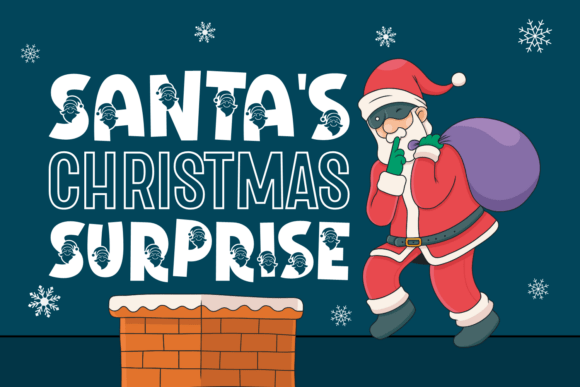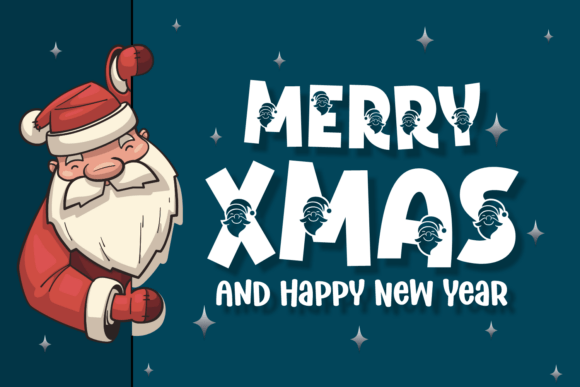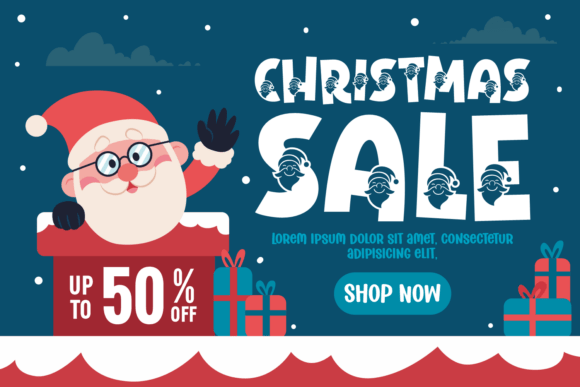
Deck the Halls with the Besty Santa Font
Have you ever found yourself struggling to capture the magic of the holiday season in your designs? You’re not alone. For many designers, creating festive and fun projects can be a daunting task, especially when it comes to conveying the joy and cheer of the holidays. That’s where the Besty Santa Font comes in – a cheerful and chunky decorative font designed to grab attention and spread festive cheer.
With its bold, bouncing letterforms and unique Santa Claus-themed embellishments, the Besty Santa Font is your go-to choice for creating eye-catching titles, spirited apparel designs, and whimsical seasonal branding. Whether you’re designing holiday cards, crafting a vinyl sticker, or creating a logo for a Christmas event, this font is guaranteed to make your design pop and bring a sense of fun and magic to the most wonderful time of the year.
Key Features of “Besty Santa Font”
- Unique Characteristics: The “Besty Santa Font” features a playful, handwritten style with a festive twist, perfect for creating eye-catching designs for Christmas and holiday-themed projects.
- Character Set: The font includes a wide range of characters, including uppercase and lowercase letters, numbers, punctuation marks, and special characters, making it versatile for various design needs.
- Font Styles: The “Besty Santa Font” offers multiple font styles, including regular, bold, italic, and bold italic, allowing designers to experiment with different looks and feels.
Designer Review: Besty Santa Font
Overall, I have mixed feelings about the Besty Santa Font. While it has some redeeming qualities, there are also some areas where it falls short.
- ✨ The font has a unique and playful vibe that could work well for festive or holiday-themed projects.
- ✨ The font’s irregularities and imperfections give it a handmade feel that could add character to designs.
- ✨ The font includes a range of weights and styles, making it relatively versatile.
Limitsations:
- ⚠️ The font’s lack of consistency and uniformity can make it difficult to read in certain contexts.
- ⚠️ The font’s irregularities, while charming in small doses, can quickly become overwhelming or even nauseating in larger quantities.
- ⚠️ The font’s limited language support and character set may limit its usability in certain projects.
Overall, I would recommend the Besty Santa Font for projects that require a playful, festive feel, but I would caution against using it for more serious or professional projects where readability and consistency are crucial.
Tips for Getting the Most Out of Besty Santa Font
Besty Santa Font is perfect for creating festive and fun designs. To get the most out of it, try:
- Using it in bold or italic styles to add emphasis.
- Mixing it with other fonts to create a unique look.
- Experimenting with different font sizes and colors.
Besty Santa Font is commonly used for:
- Christmas and holiday-themed designs.
- Festive invitations and party decorations.
- Fun and playful social media graphics.
Alternatives to “Besty Santa Font” for Designers
The Great Vibes Font is a beautiful, handwritten script font that can be used for various design purposes, including invitations, quotes, and social media posts. It’s perfect for creating a playful and whimsical atmosphere. Compared to Besty Santa Font, Great Vibes Font has a more casual and relaxed feel, making it ideal for everyday designs.
Pacifico Font is a elegant and sophisticated script font that’s perfect for luxury branding, invitations, and special occasions. It’s ideal for designers who want to create a high-end and polished look. Compared to Besty Santa Font, Pacifico Font has a more refined and classic feel, making it suitable for formal designs.